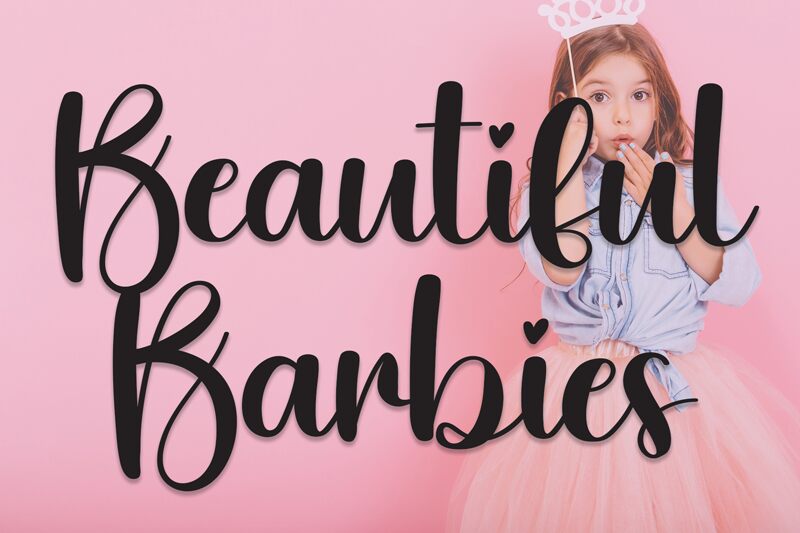
Beautiful Barbies, designed by Scratchones, is a calligraphy font that exudes elegance and a personalized touch. Its semi-light weight gives it a delicate yet confident presence on the page, creating an intimate feel that's perfect for invitations, branding, and decorative greetings. The flowing strokes and subtle variation in line thickness evoke the charm of hand-written correspondence.
This font's aesthetic appeal lies in its harmonious blend of classic calligraphy with contemporary flair. The graceful curves and fine lines suggest sophistication while maintaining readability. Beautiful Barbies stands out for its potential to add a touch of class to various creative projects where a hint of individuality is desired.